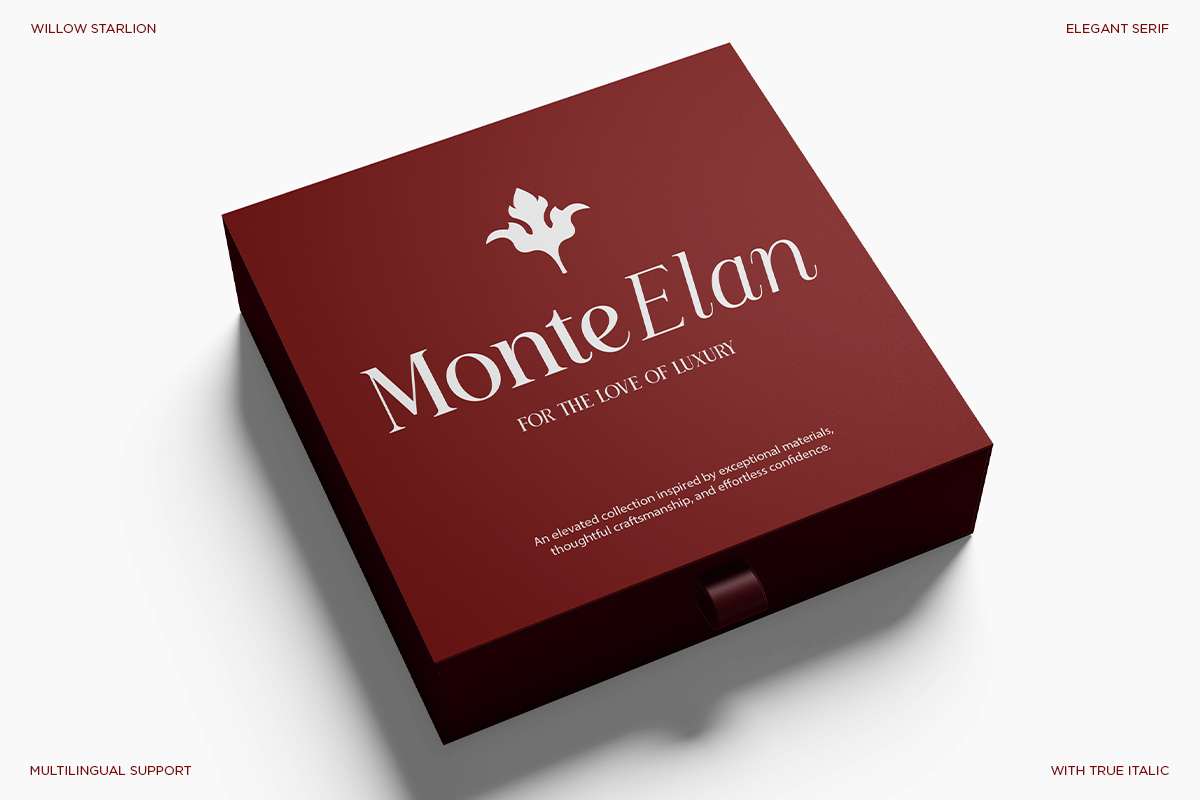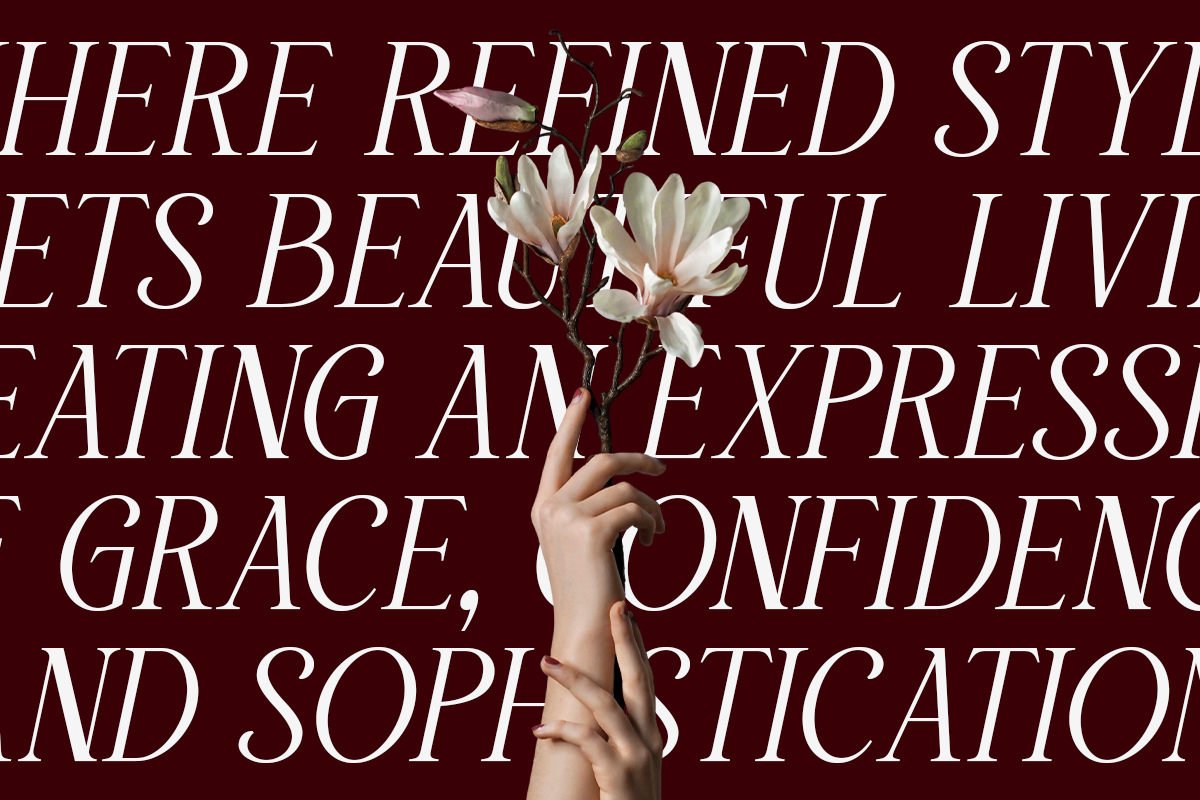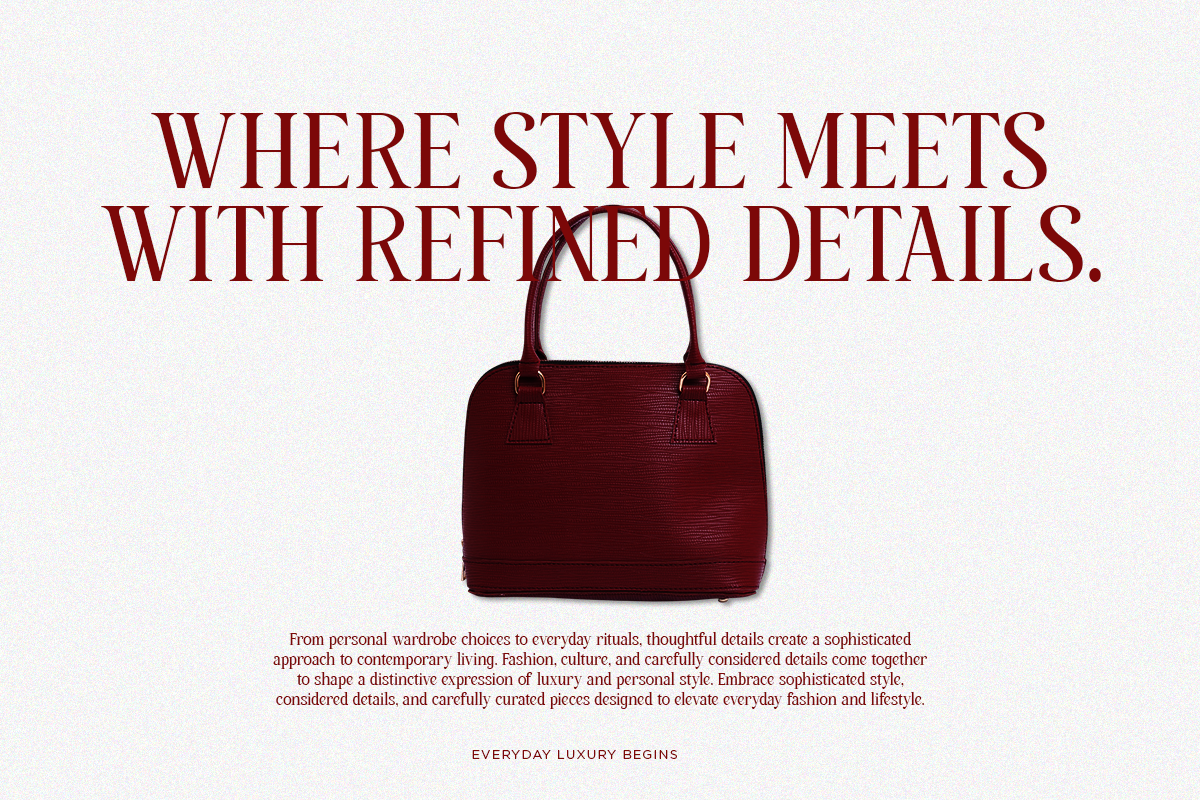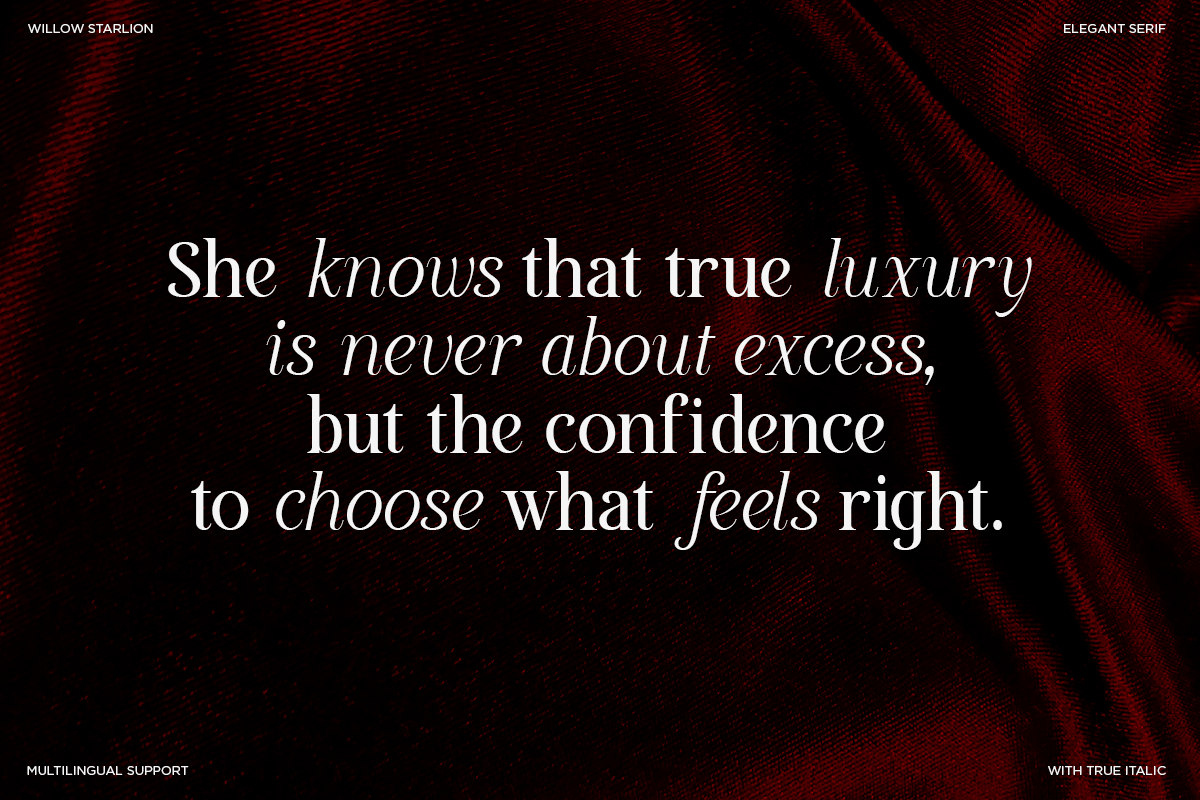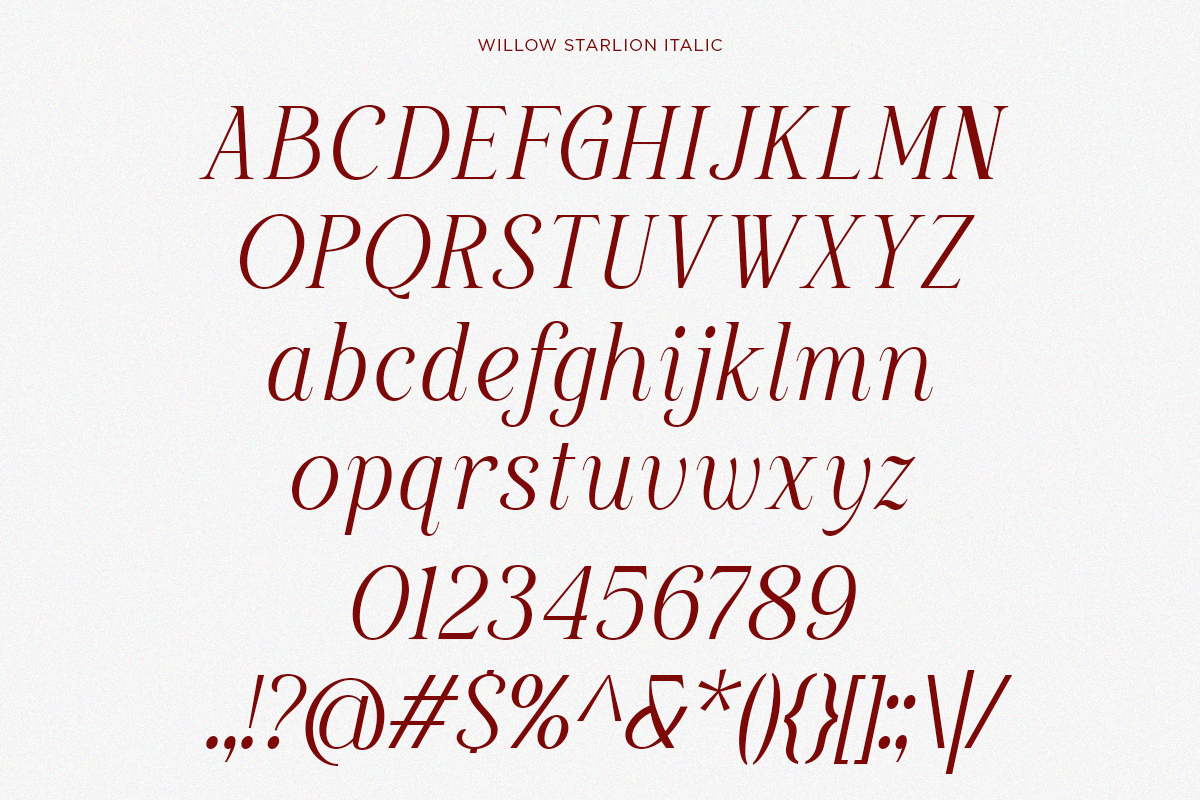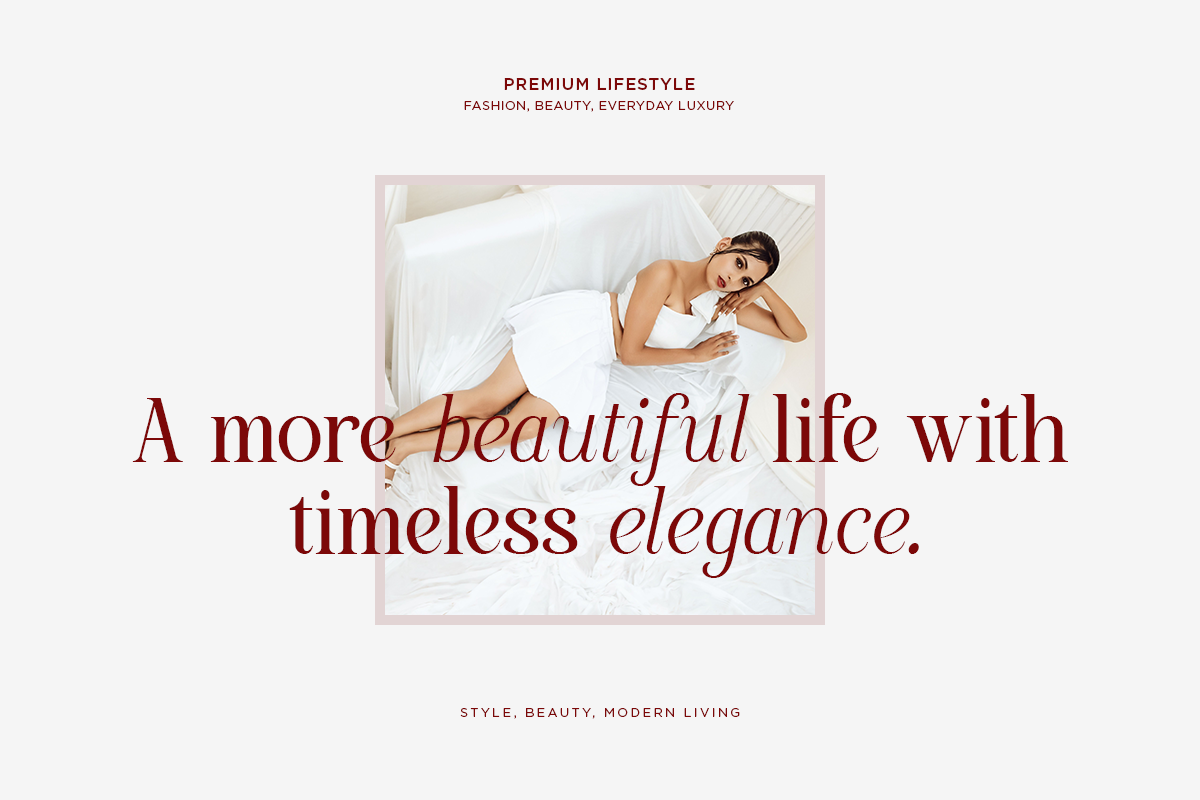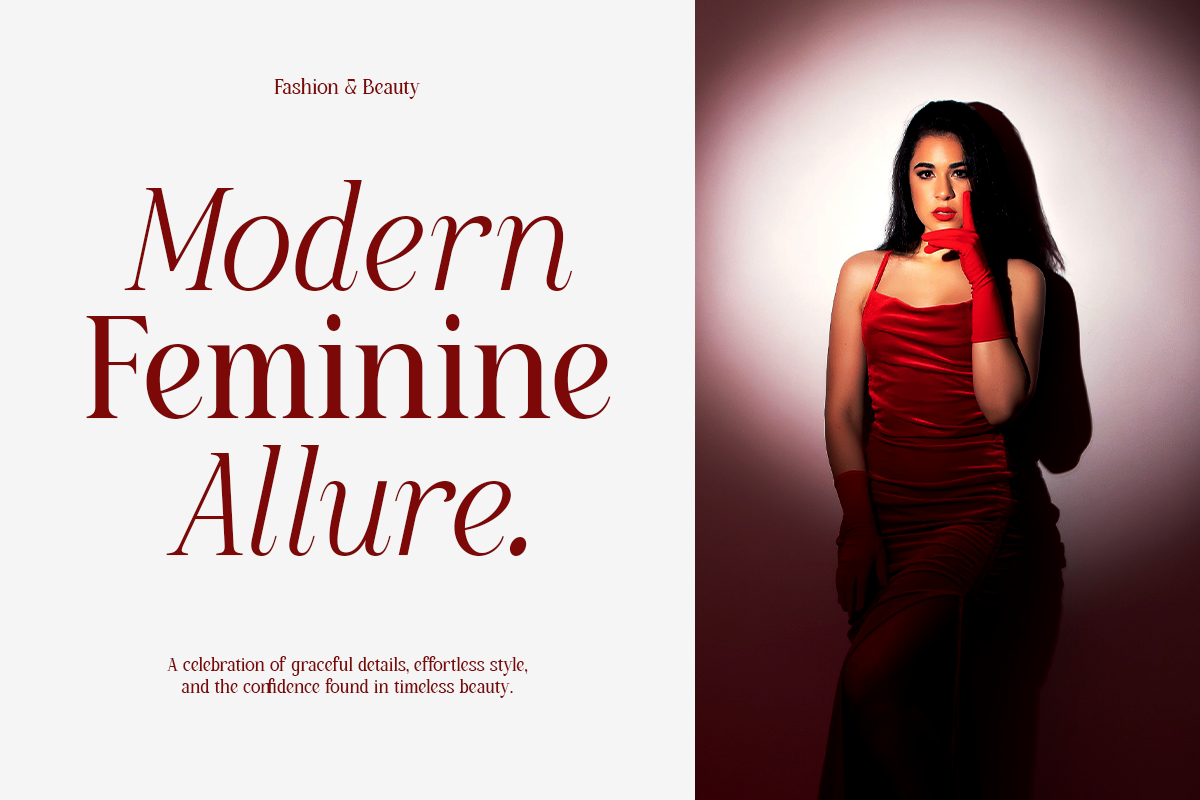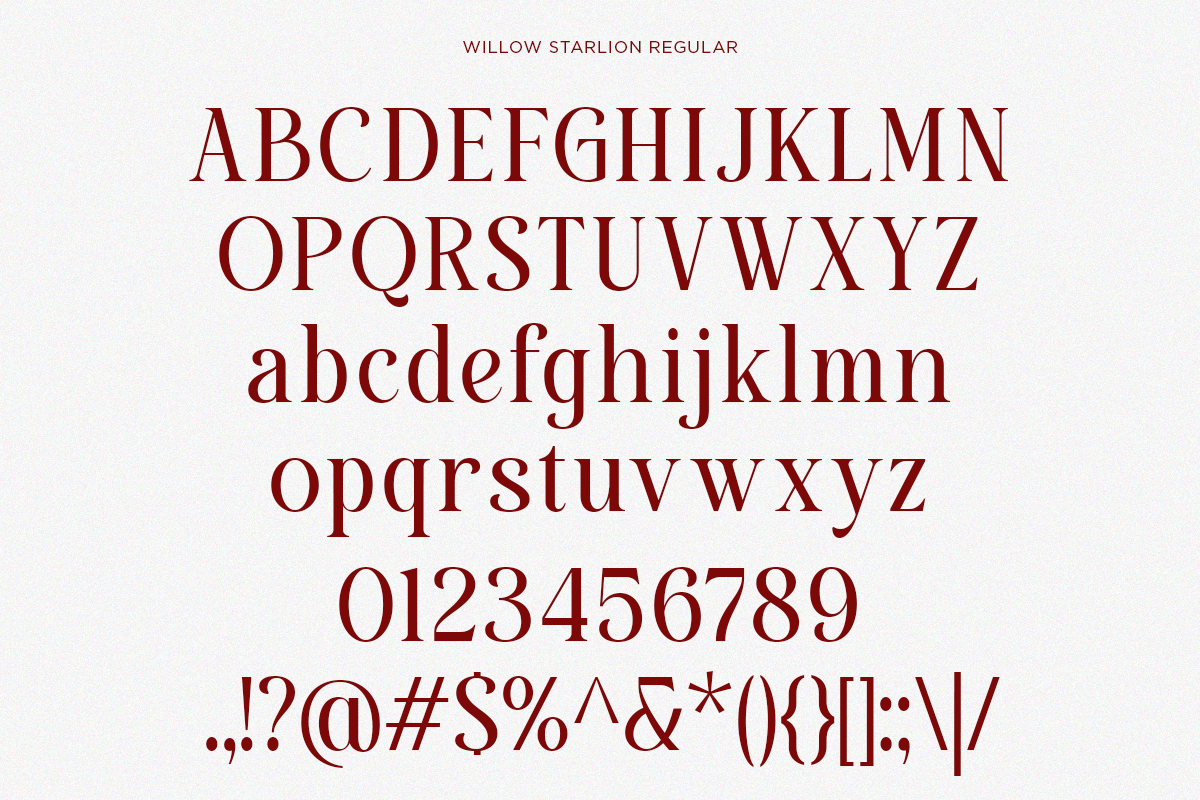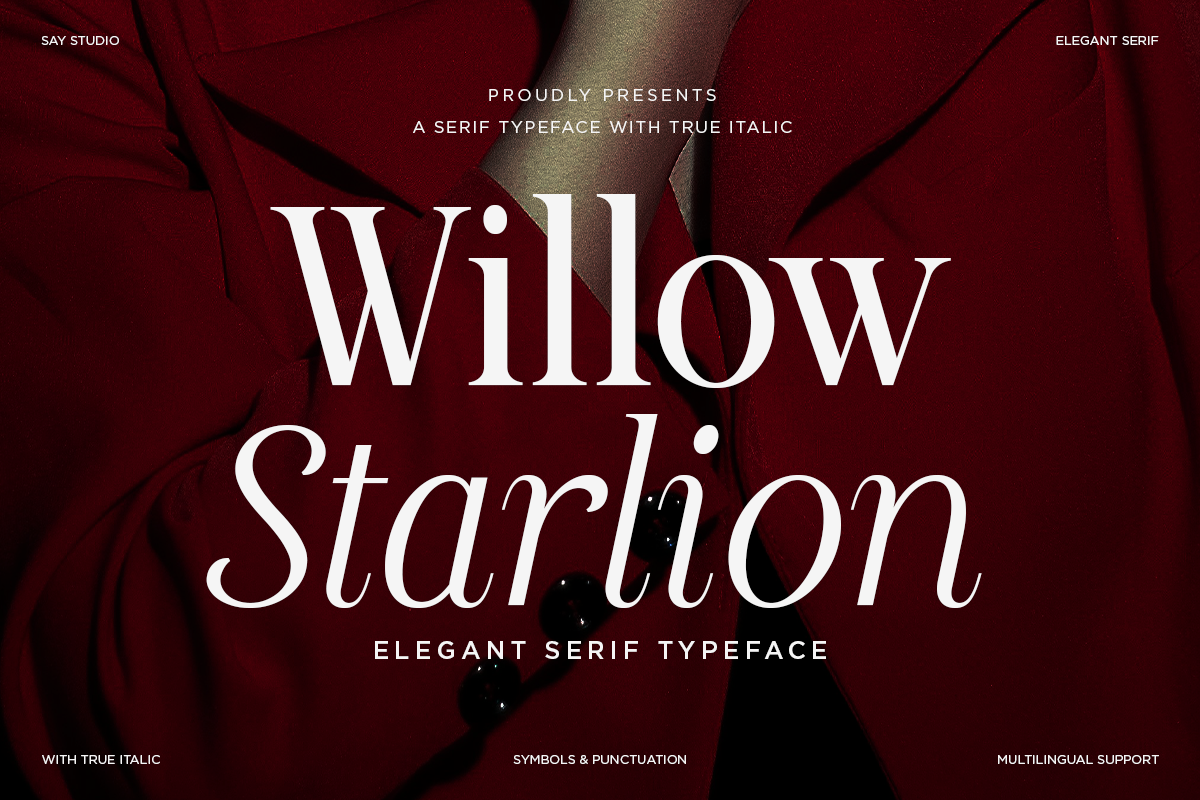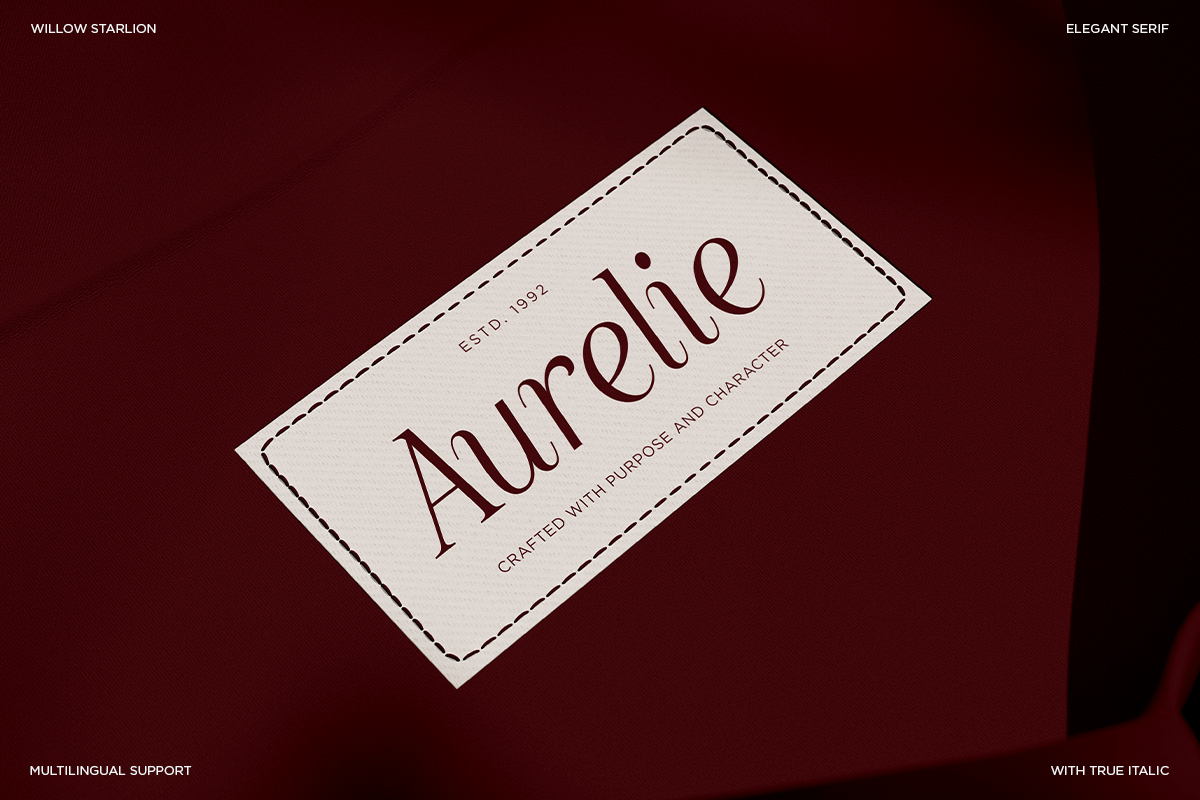
Willow Starlion - Elegant Serif Font
Willow Starlion is an elegant serif font family designed to bring refined sophistication, graceful character, and modern editorial style to contemporary design projects. With its carefully crafted letterforms and balanced contrast, this typeface creates a polished visual presence that feels both timeless and fashionable.
Featuring Regular and True Italic styles, Willow Starlion gives designers the flexibility to build expressive typographic hierarchies while maintaining a consistent visual identity. The Regular style provides a sophisticated and confident appearance, while the True Italic introduces a graceful sense of movement and elegance, making the family suitable for both refined headlines and expressive display typography.
Perfect for luxury branding, fashion editorials, beauty packaging, wedding invitations, boutique identities, magazine layouts, logo design, product labels, cosmetic branding, premium stationery, social media designs, posters, lookbooks, and elegant advertising materials. Willow Starlion works especially well for projects that require a sophisticated, feminine, fashionable, and timeless serif aesthetic.
Regular and True Italic
Number, Symbols, and Punctuation